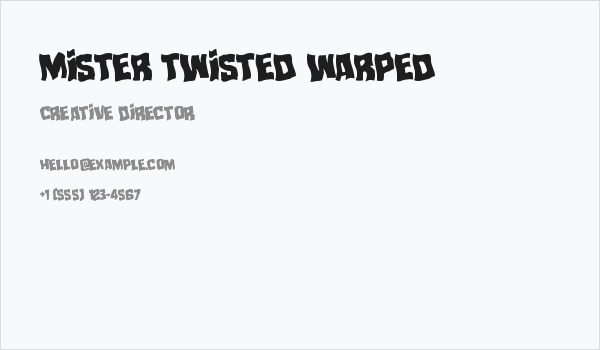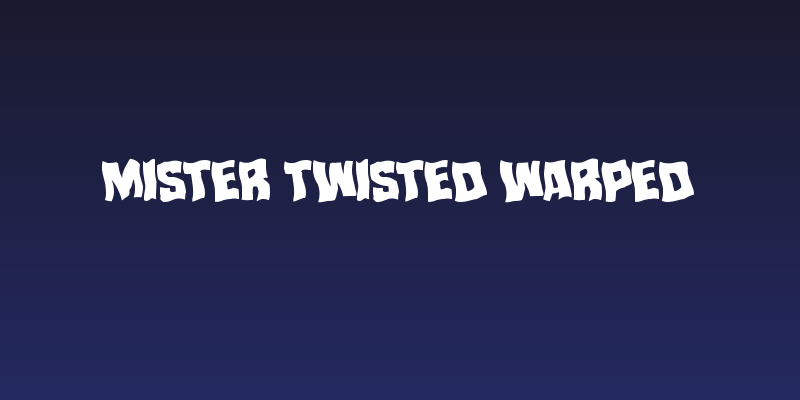
Mister Twisted Warped Font
Mister Twisted Warped Description
This font features a playful and distorted design, with each character appearing as if it has been twisted and warped. The bold, irregular shapes create a dynamic and energetic feel, making it stand out in any design. The uppercase and lowercase letters maintain a consistent style, with exaggerated curves and angles that give the font a unique personality. The numbers and special characters follow the same whimsical pattern, ensuring a cohesive look across all text elements. This font is perfect for projects that require a bold and unconventional aesthetic.
| Proposed Projects | Ideal for posters, album covers, children's book titles, and creative branding projects. |